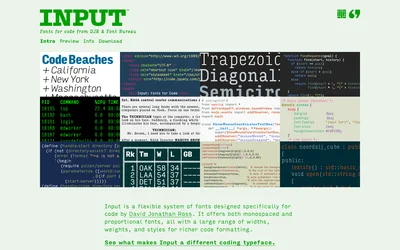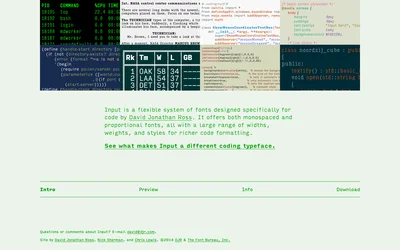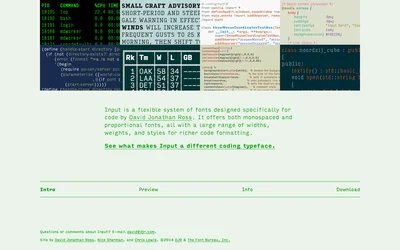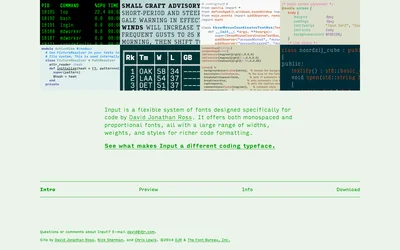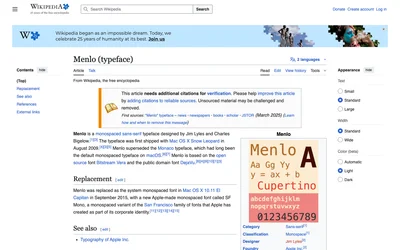
Input Mono vs Menlo
Input Mono and Menlo are both mono typefaces sharing a monospace foundation. Where Input Mono leans readable, Menlo brings tech. Compare which suits your Code project.
Design overlap:50%
Input Mono
Monospace
Readable
Code
Menlo
Monospace
CodeTech
Input Mono
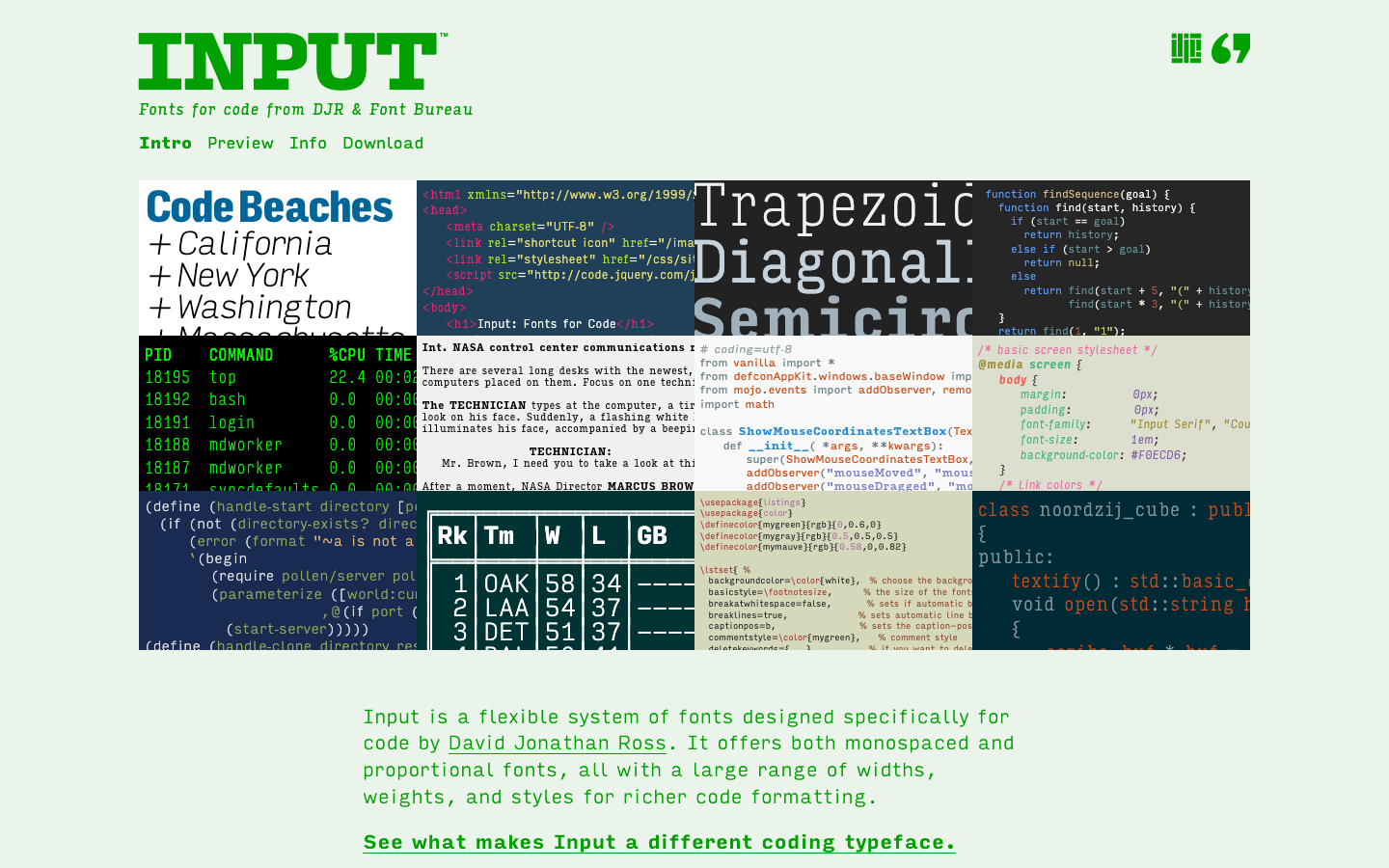
Menlo
| Feature | Input Mono | Menlo |
| Classification | mono | mono |
| Source | Font Bureau | Apple Inc. |
Recommended: Input Mono
- readable design character
- Suited for Ide
- From font-bureau
Consider: Menlo
- tech design character
- Suited for Technical
- From apple